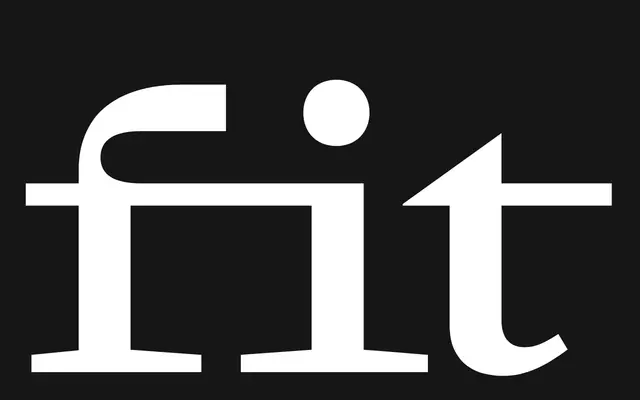
Aloha
Newglyph · Ian Party
A monospaced typeface by Ian Party that deliberately mixes serif and sans-serif letterforms within the same character set, spanning five weights with a variable axis.
Selective serifs appear on certain lowercase letters such as f, g, i, j, l and t, and on uppercase characters including C, G, I, J and S, while the remaining glyphs follow a clean sans-serif structure. The contrast between the two conventions is treated as a feature rather than an inconsistency, giving the typeface a distinctive rhythm within its fixed-width grid. Available in OTF, TTF and WOFF2 formats, including a variable font file and 367 individual static styles.
Aloha is explicitly a monospaced typeface, distinguished by its deliberate mixing of serif and sans-serif letterforms within the same family, making it a hybrid mono rather than a purely grotesque or slab mono.